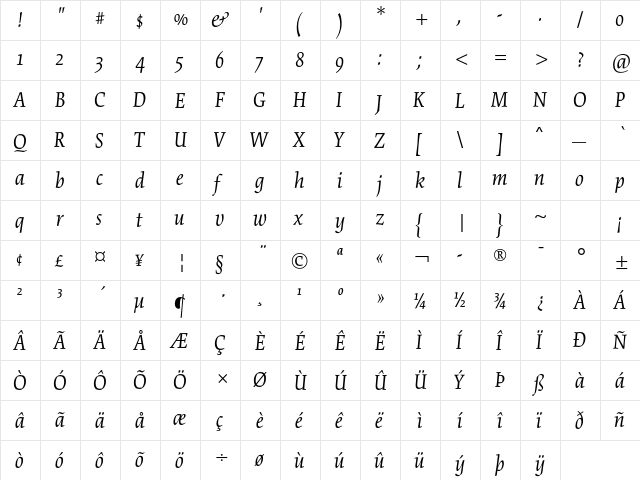
Cartier Book Pro Italic
| Designer | Carl Dair/Rod McDonald |
Design Context for Cartier Book Pro Typeface
Cartier Book Pro offers clean, dependable letterforms without strong stylistic allegiance, making it a practical choice for designers who need flexibility. The dynamic lean of this cut emphasises speed and emphasis in any layout.
Pro Tip: Use Cartier Book Pro for emphasis, pull quotes, and subheadings where its slanted energy can add rhythm to the layout.